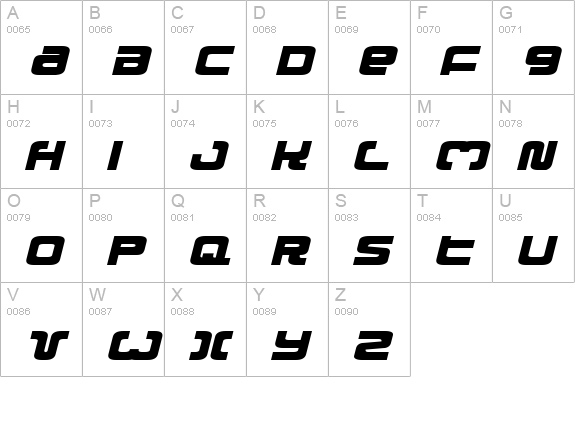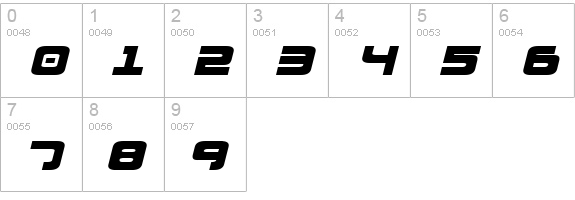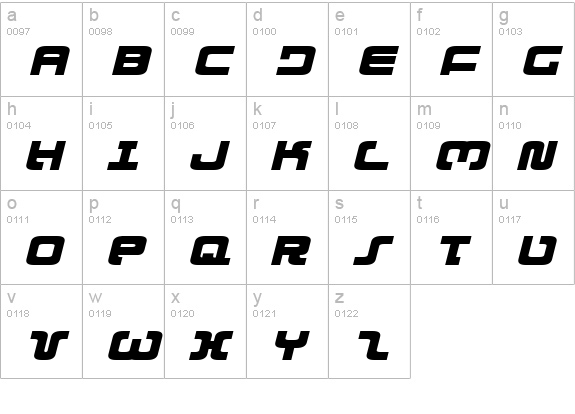
Exedore Expanded Italic is a distinctive, extended-width, italic variant in the Exedore typeface family \xE2\x80\x94 well suited to design and typography projects.
Exedore Expanded Italic is a stunning and elegant font that exudes sophistication and modernity. Its sleek and elongated letterforms add a touch of flair and style to any design project. The italicized version of Exedore Expanded brings a sense of dynamism and movement, making it perfect for conveying a sense of energy and creativity. What makes Exedore Expanded Italic even more appealing is that it is available for free download at FontsMarket.com. This means that you can easily access this beautiful font without any cost, making it a valuable addition to your font collection. Whether you're working on branding, editorial design, or any other creative project, Exedore Expanded Italic will elevate your work with its unique and eye-catching aesthetic. Download it today and let your designs stand out with this modern and sophisticated typeface.